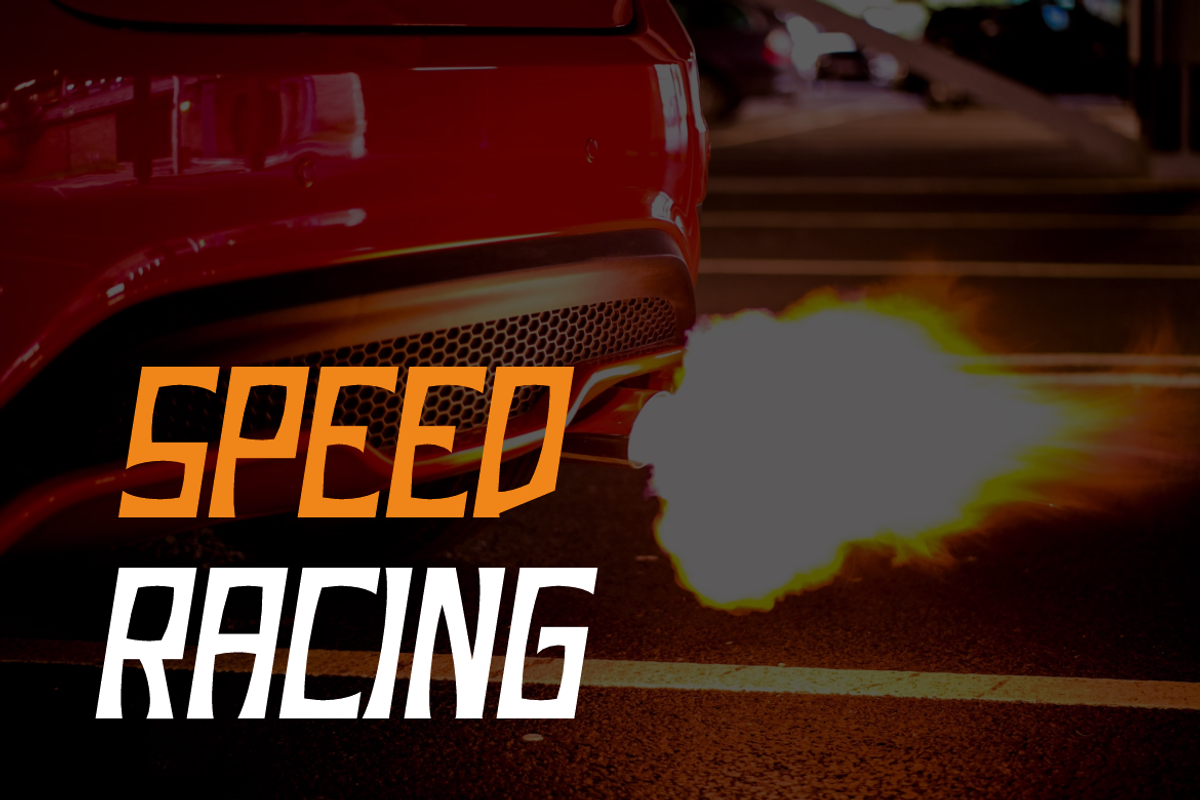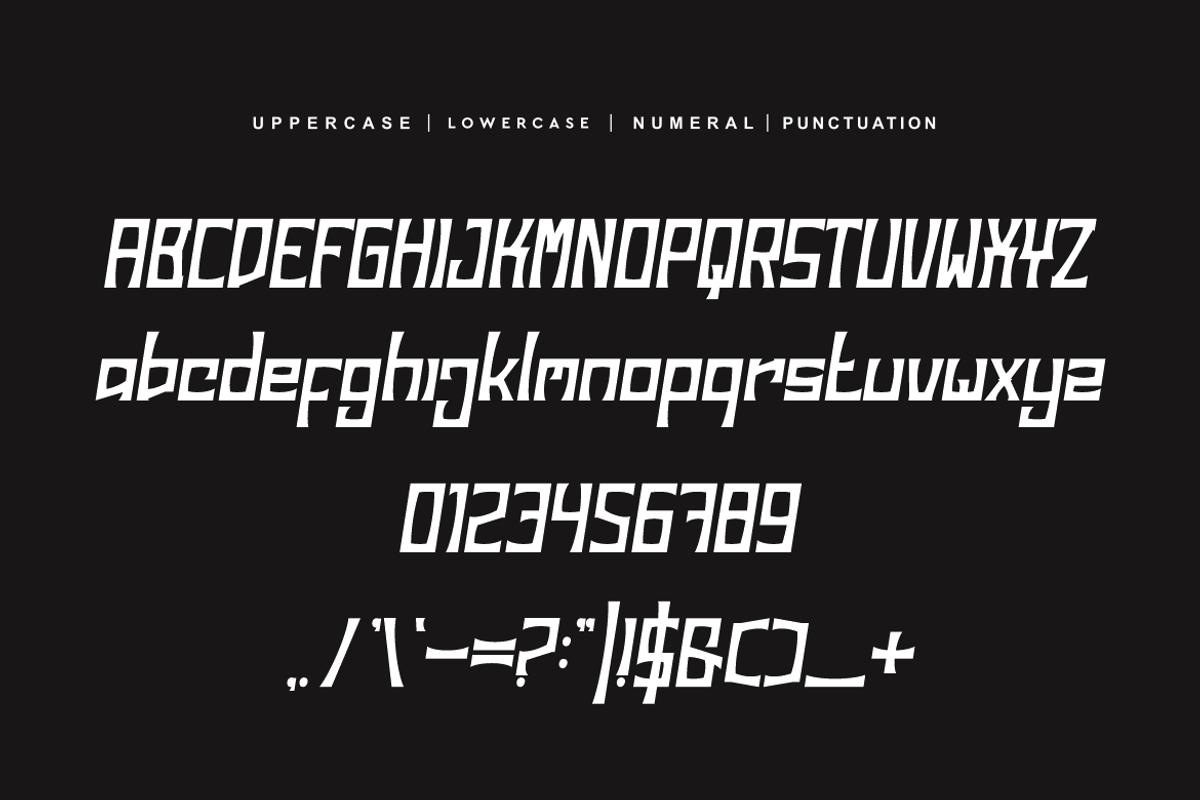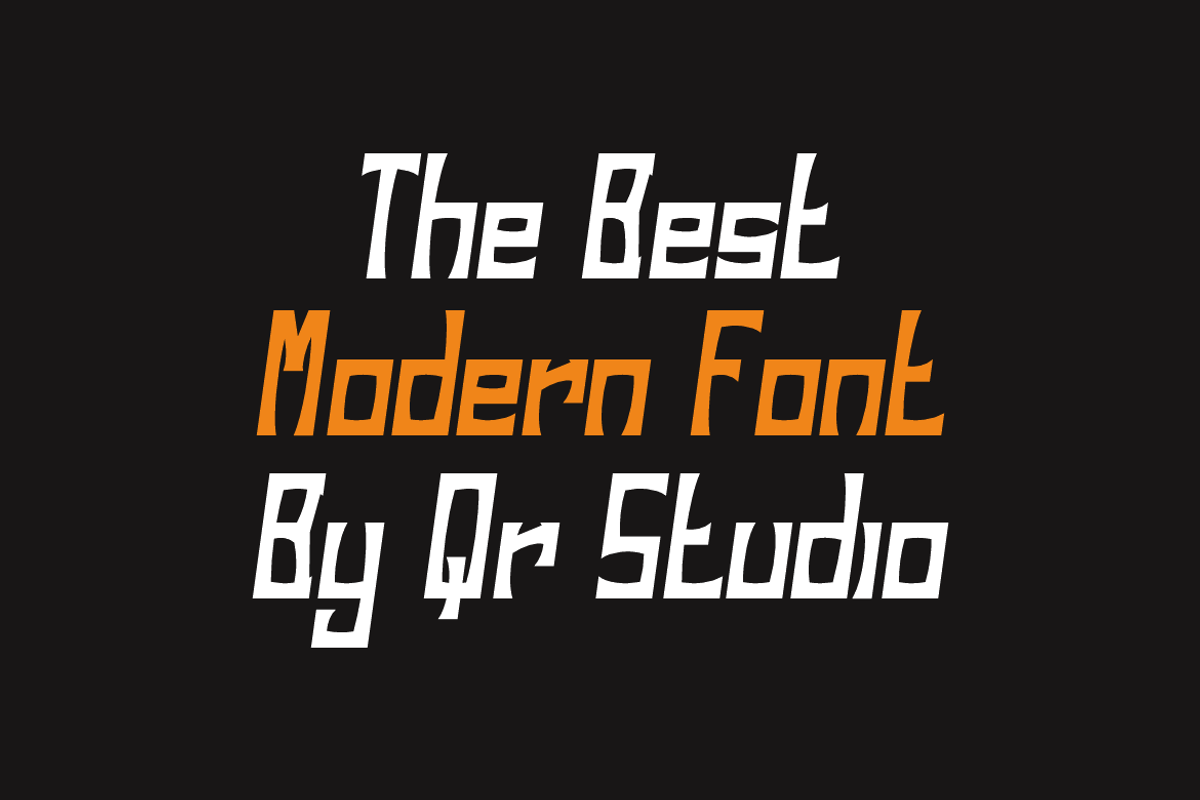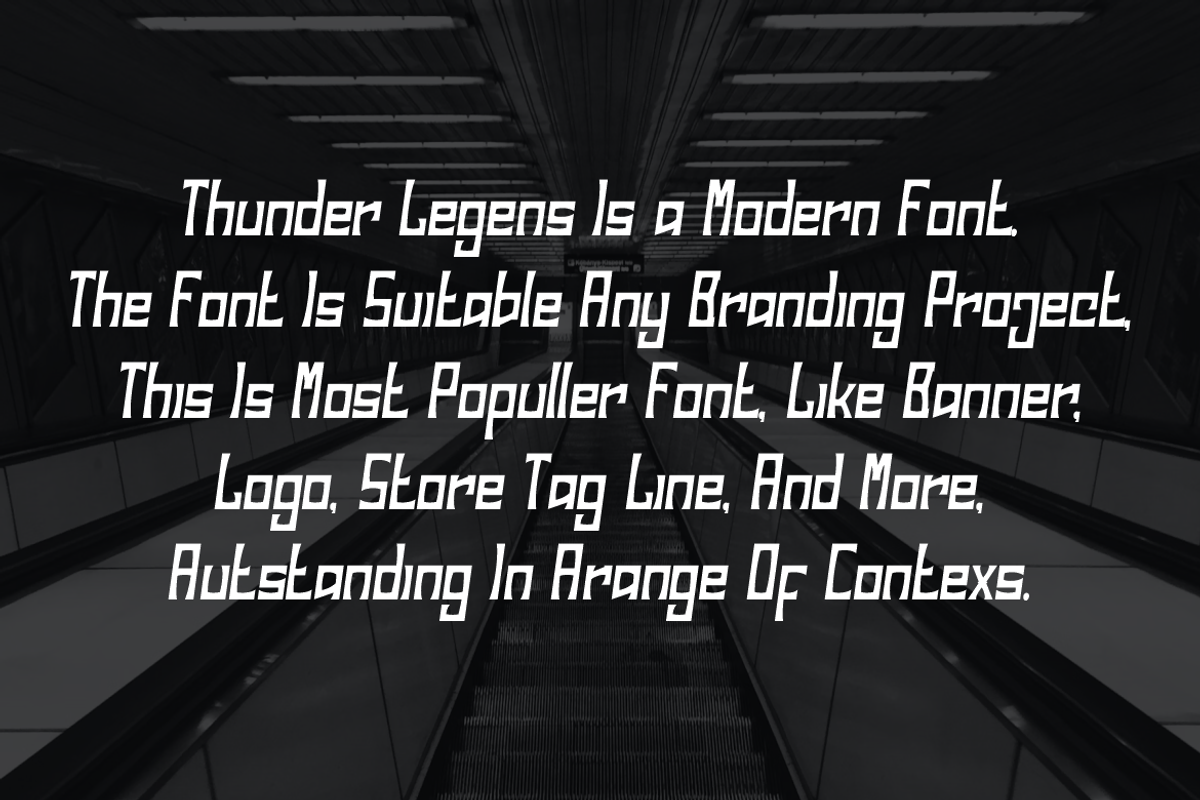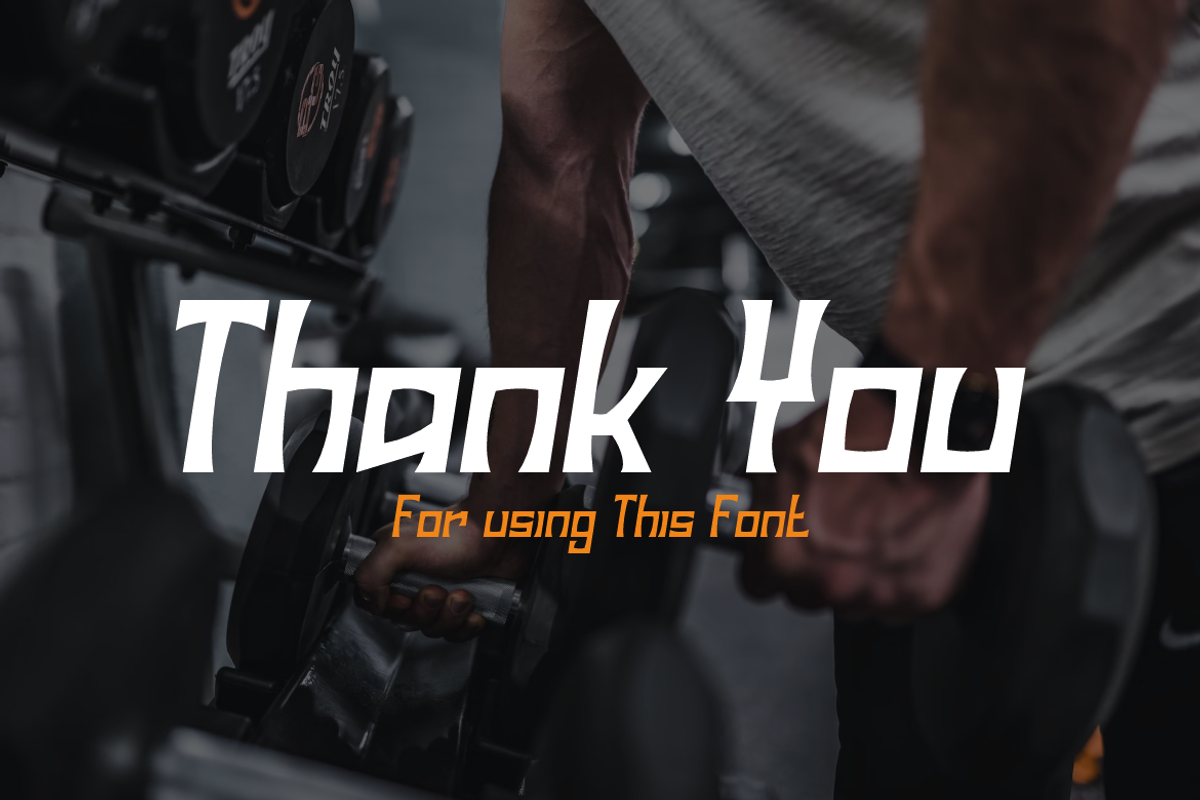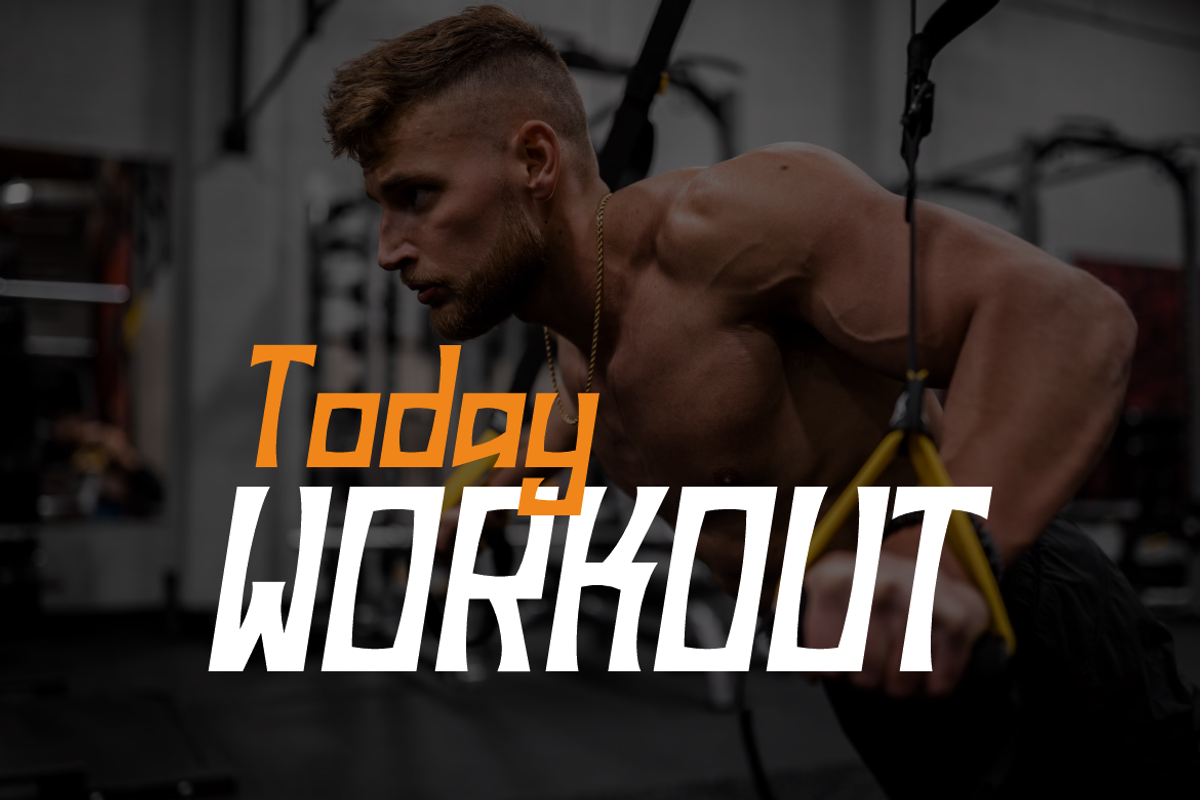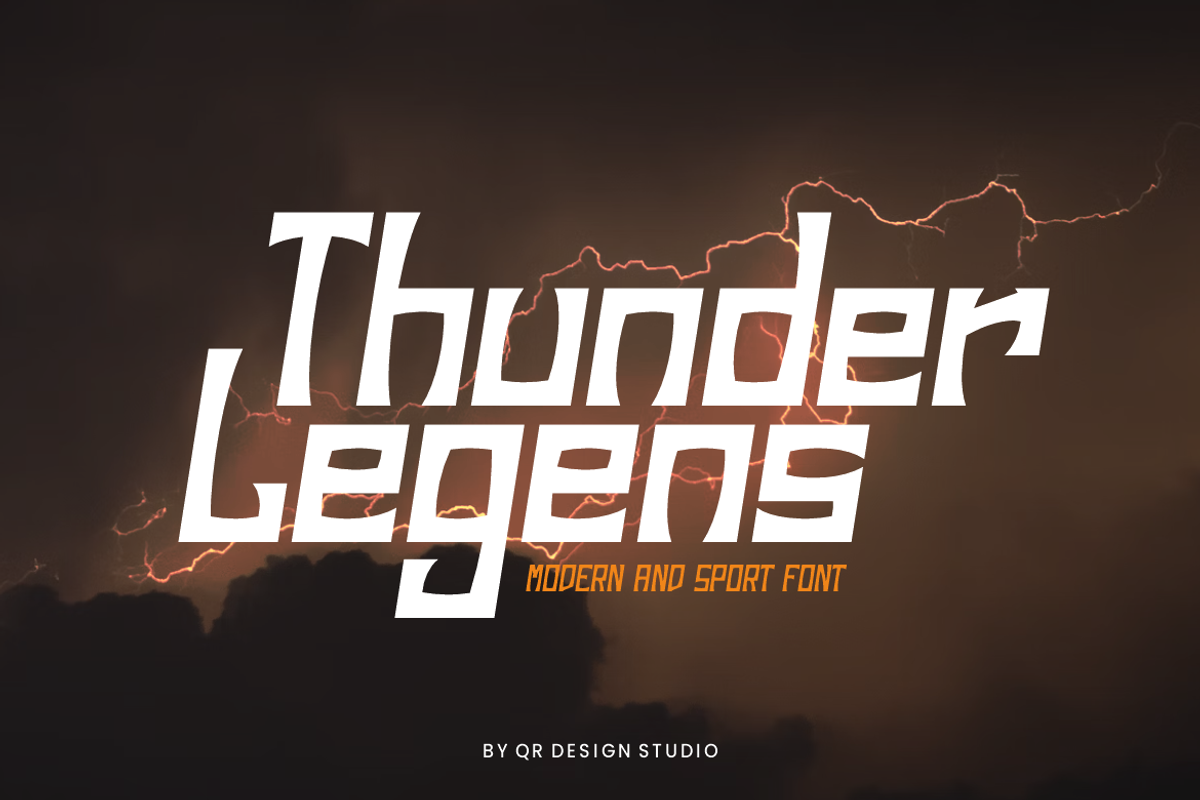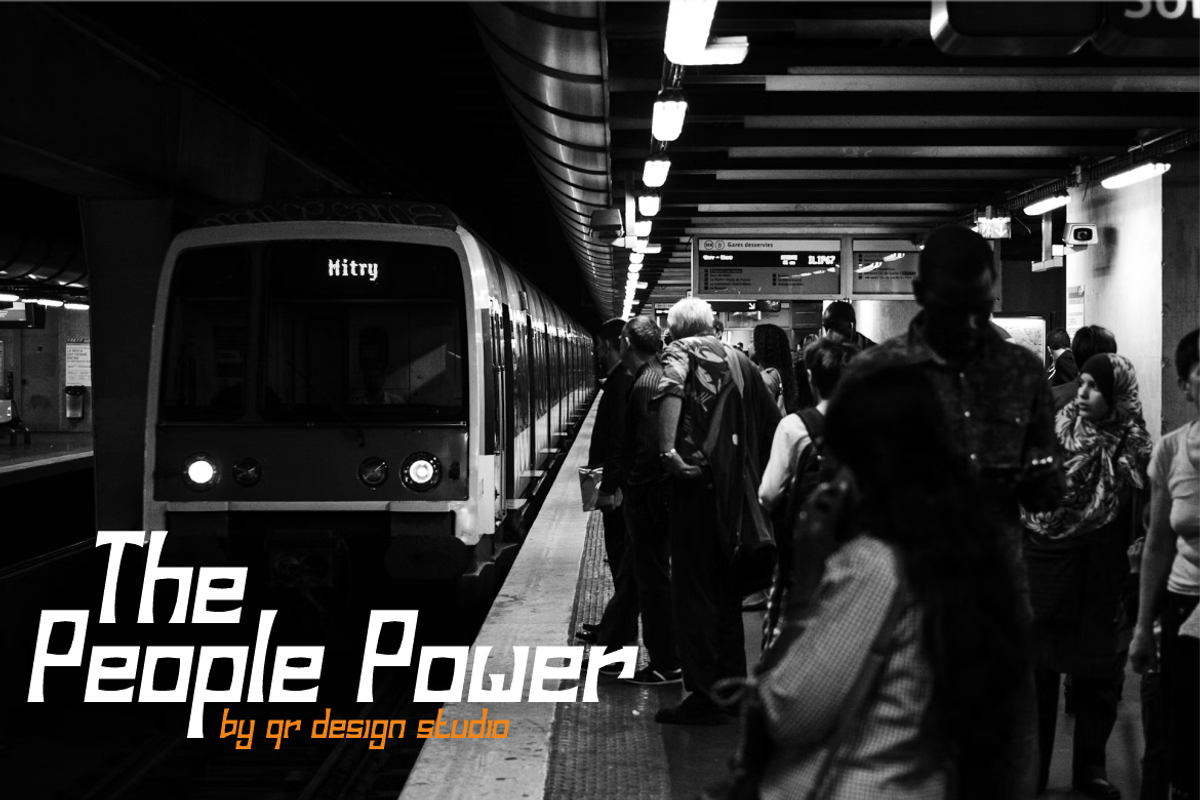
Thunder Legens - Sport Font
Thunder Legens - Sport Font is a bold and authentic display font. The font is suitable for any branding project like poster, logo, sport, and many more. Outstanding in a wide range of contexts.